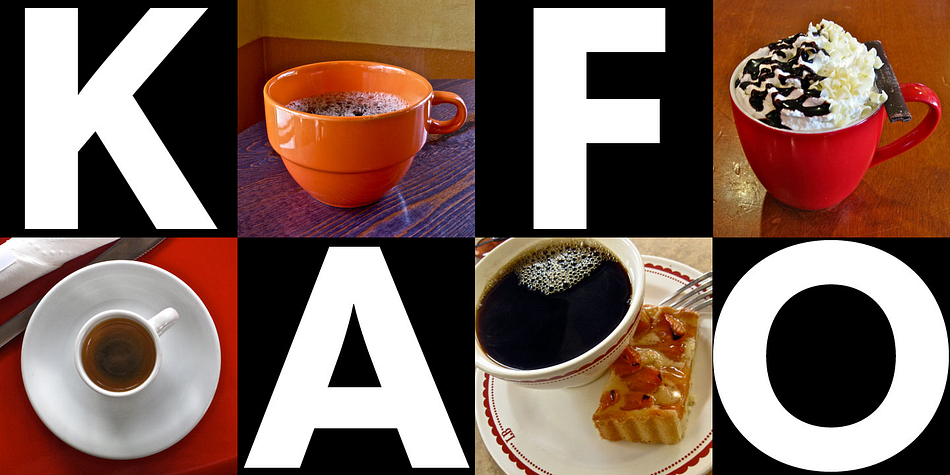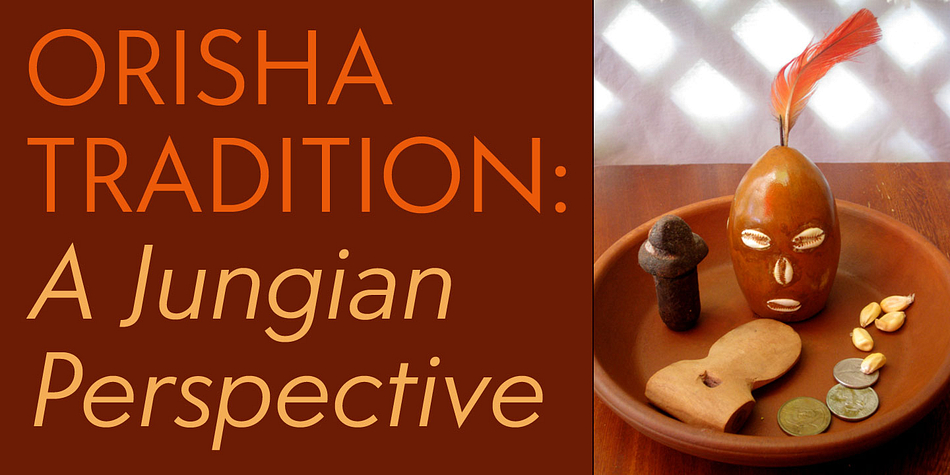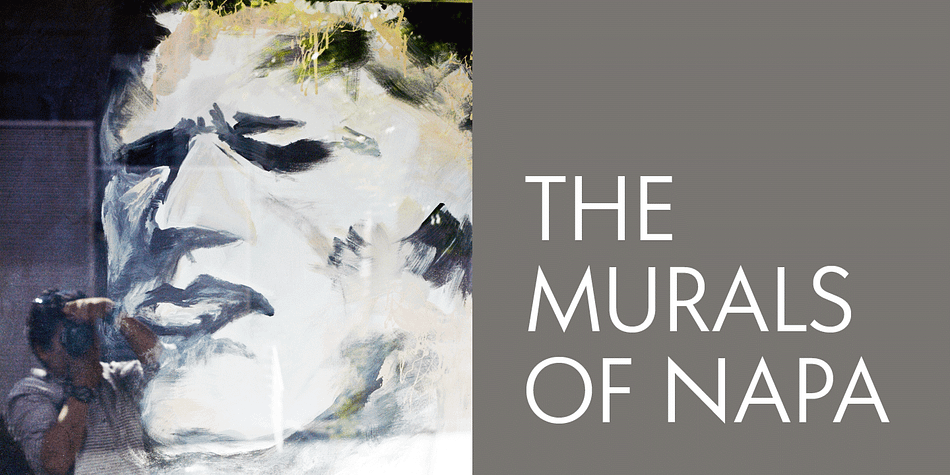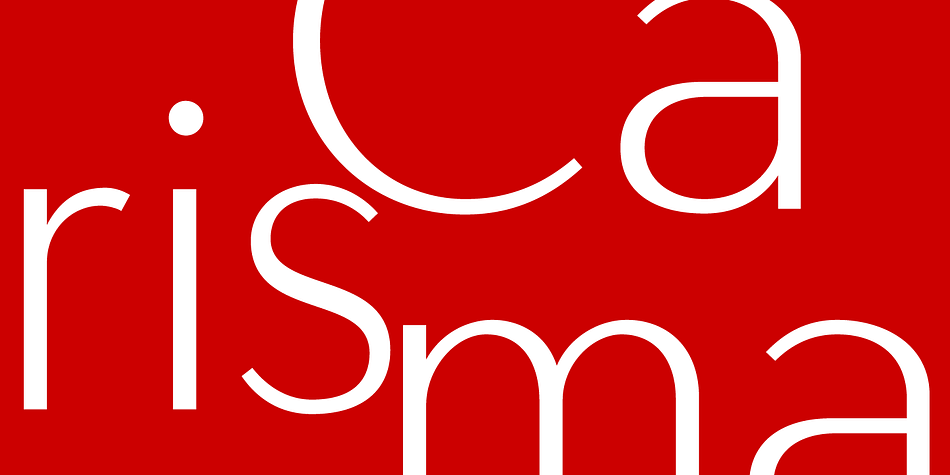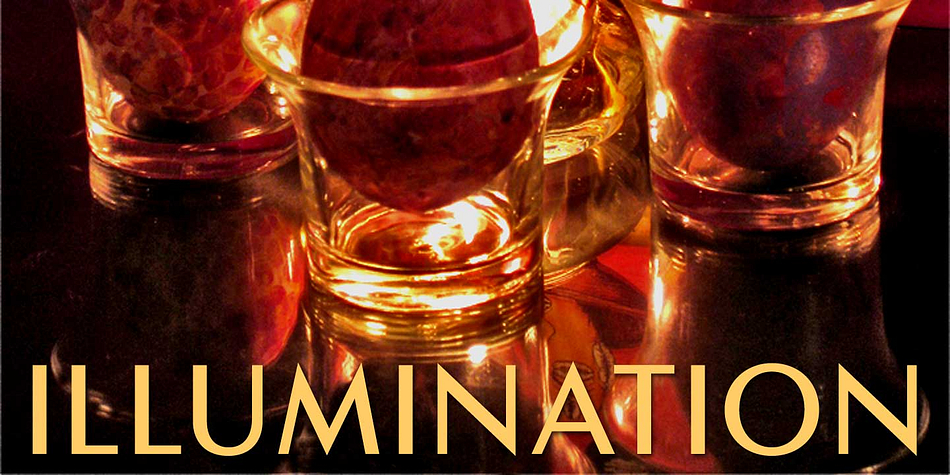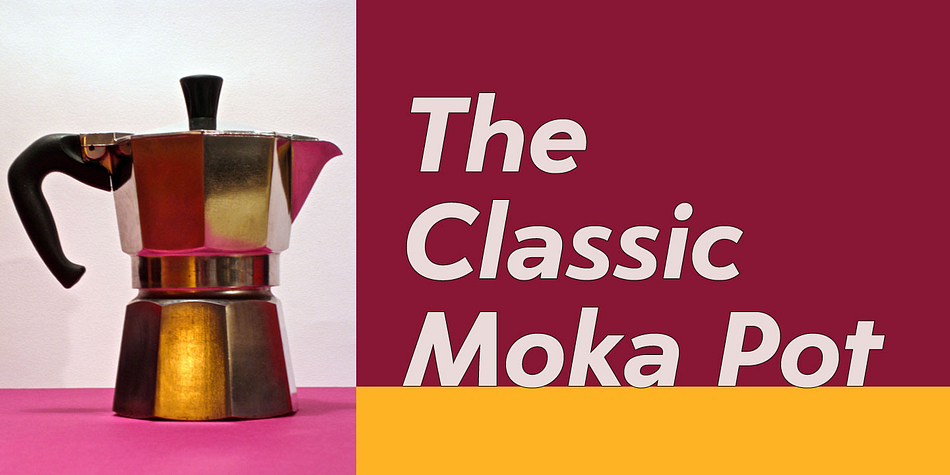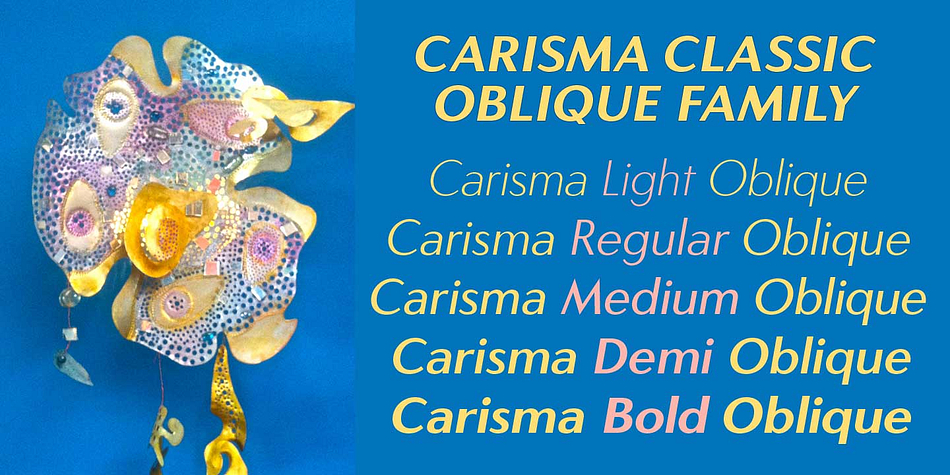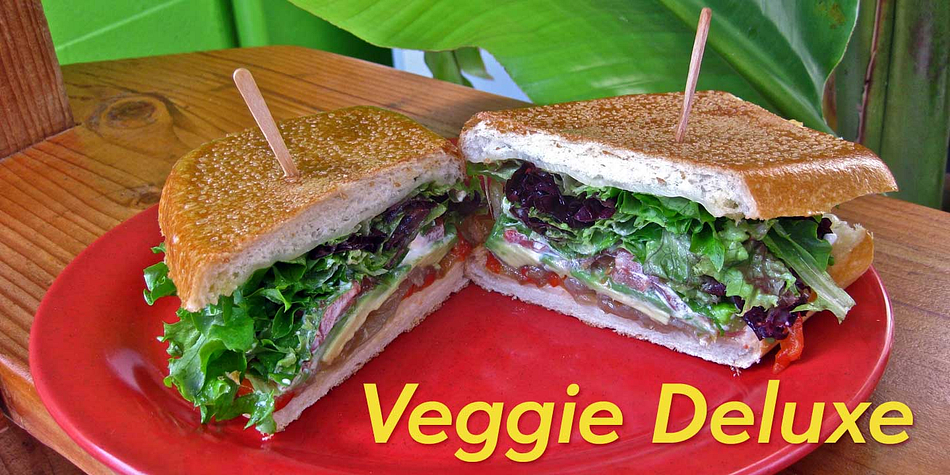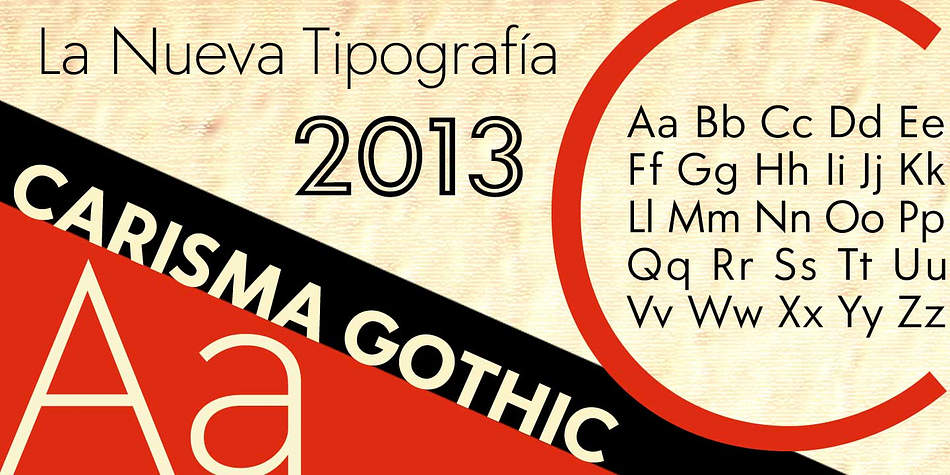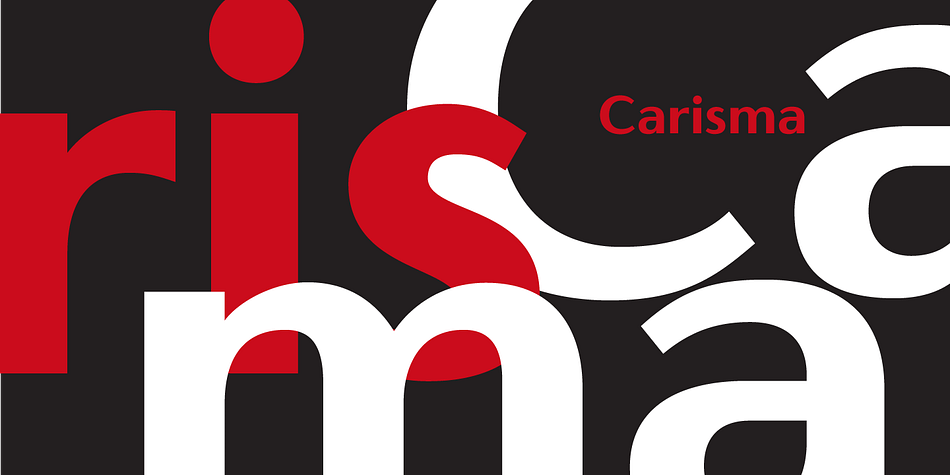
Designed by Jason Castle, Carisma is a display sans and sans serif font family. This typeface has thirty styles and was published by CastleType.
“If you’re in need of a sophisticated sans serif font, look no further than type designer Jason Castle’s Carisma” (Paul Shaw in HOW magazine). Carisma, a CastleType Original, combines the elegance of classic capitals, the simplicity of clean-cut, geometric lowercase letters and the warmth of sensuous curves, subtle contrasts and sensitively tapered terminals, making it the perfect typeface for an understated, modern, sophisticated look.